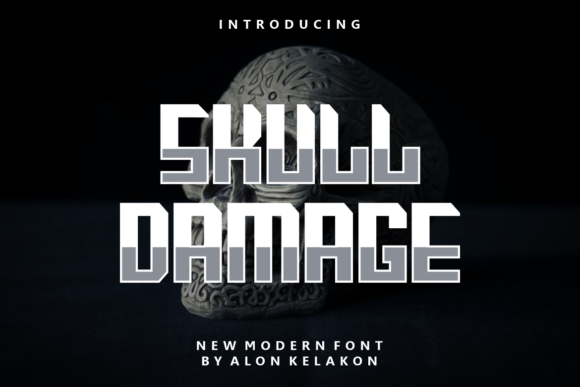
Skull Damage: A Bold Font for Dynamic Branding
Skull Damage is a striking, thick-lettered display font that exudes confidence and energy. Its bold design makes it ideal for branding projects where visual impact is key. Whether you're working on logos, t-shirt designs, or sports-related graphics, Skull Damage offers a powerful aesthetic that commands attention.
This font is particularly effective in contexts where a strong, memorable identity is needed. It works well in both digital and print formats, ensuring consistency across different mediums. Its versatility allows it to fit into various creative workflows without compromising quality or clarity.
Understanding the Role of Skull Damage in Branding
In the broader process of branding, Skull Damage serves as a visual anchor that reinforces brand personality. It can be used to highlight key messages, create eye-catching headlines, or add a unique flair to design elements. When integrated thoughtfully, it enhances the overall look and feel of a brand's visual identity.
Before starting a project, consider how Skull Damage aligns with your brand's tone and goals. Does it reflect the desired image? Will it resonate with your target audience? These questions help determine whether the font is the right choice for your specific needs.
During the design phase, Skull Damage can be paired with other fonts to create contrast and balance. For example, using it alongside a more traditional typeface can add depth and variety to a layout. This approach ensures that the font remains prominent without overwhelming the composition.
Using Skull Damage in Different Workflow Stages
Skull Damage can be applied at multiple stages of a project. Before finalizing a design, test it in different sizes and placements to see how it performs. This helps identify any potential issues, such as legibility or spacing problems, before moving forward.
During the execution phase, ensure that the font is compatible with the tools and platforms you're using. Most design software supports custom fonts, but it's wise to check for any limitations or formatting challenges. Keeping this in mind can save time and prevent last-minute adjustments.
After the project is complete, evaluate how Skull Damage contributes to the overall outcome. Does it enhance the message or distract from it? Gathering feedback from others can provide valuable insights into its effectiveness and help guide future decisions.
Integration with Other Design Elements
When working with Skull Damage, consider how it interacts with other design elements such as colors, images, and layouts. A bold font like this often benefits from a clean, uncluttered background to avoid visual overload. This allows the font to stand out while maintaining a professional appearance.
Pairing Skull Damage with complementary color schemes can further amplify its impact. For instance, using dark backgrounds with light-colored text can create a dramatic effect that draws attention. Conversely, light backgrounds with dark text may offer a more straightforward and modern look.
Additionally, think about the context in which the design will be used. If it's for a website, ensure that the font is web-safe or properly embedded. For print materials, verify that the font is available in the correct format and resolution to maintain quality during production.
Practical Tips for Using Skull Damage
To get the most out of Skull Damage, start by experimenting with different styles and applications. Try it in various sizes and positions to see how it affects the overall design. This exploration can reveal new possibilities and help refine your approach.
Organize your workflow by keeping a library of fonts and design assets. This makes it easier to access Skull Damage when needed and ensures consistency across projects. Maintaining a structured system also improves efficiency and reduces the risk of errors.
Consider the long-term use of Skull Damage in your branding efforts. If it becomes a core part of your visual identity, make sure it's adaptable to future changes. This might involve updating designs or adjusting the font's application as your brand evolves.
Enhancing Workflow Efficiency with Skull Damage
Integrating Skull Damage into your workflow can streamline the design process. By choosing a font that is both visually appealing and easy to work with, you reduce the need for constant adjustments and revisions. This leads to faster turnaround times and higher-quality results.
Use Skull Damage strategically to emphasize important elements within a design. Whether it's a headline, a call-to-action, or a tagline, the font's boldness can draw attention and reinforce key messages. This intentional use helps maintain focus and clarity in your communication.
Collaboration is another area where Skull Damage can be beneficial. When working with a team, having a consistent font choice ensures that all members are aligned in their visual approach. This promotes unity and reduces confusion during the design process.
As you continue to explore its potential, keep an open mind and be willing to adapt. The goal is to find the right balance between creativity and practicality, ensuring that Skull Damage enhances your work without overshadowing it. With careful planning and execution, this font can become a valuable asset in your design toolkit.